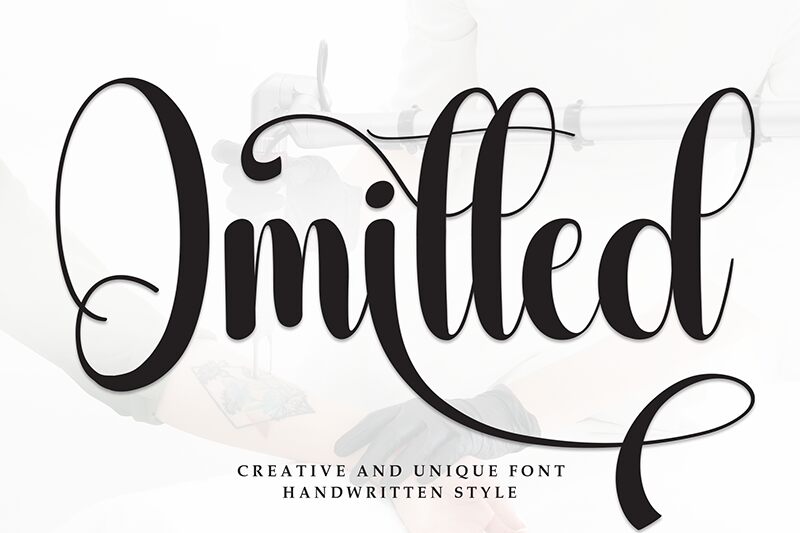
Omitted
Omitted font by Scratchones is a sophisticated free calligraphy font with plenty of decorative and flowing flourishes to appreciate. It is an expressive handwritten typeface with modern script inspirations and highly ornamental strokes. Being condensed only increases its intricate details and condensed build which help it appear elegant in your projects.